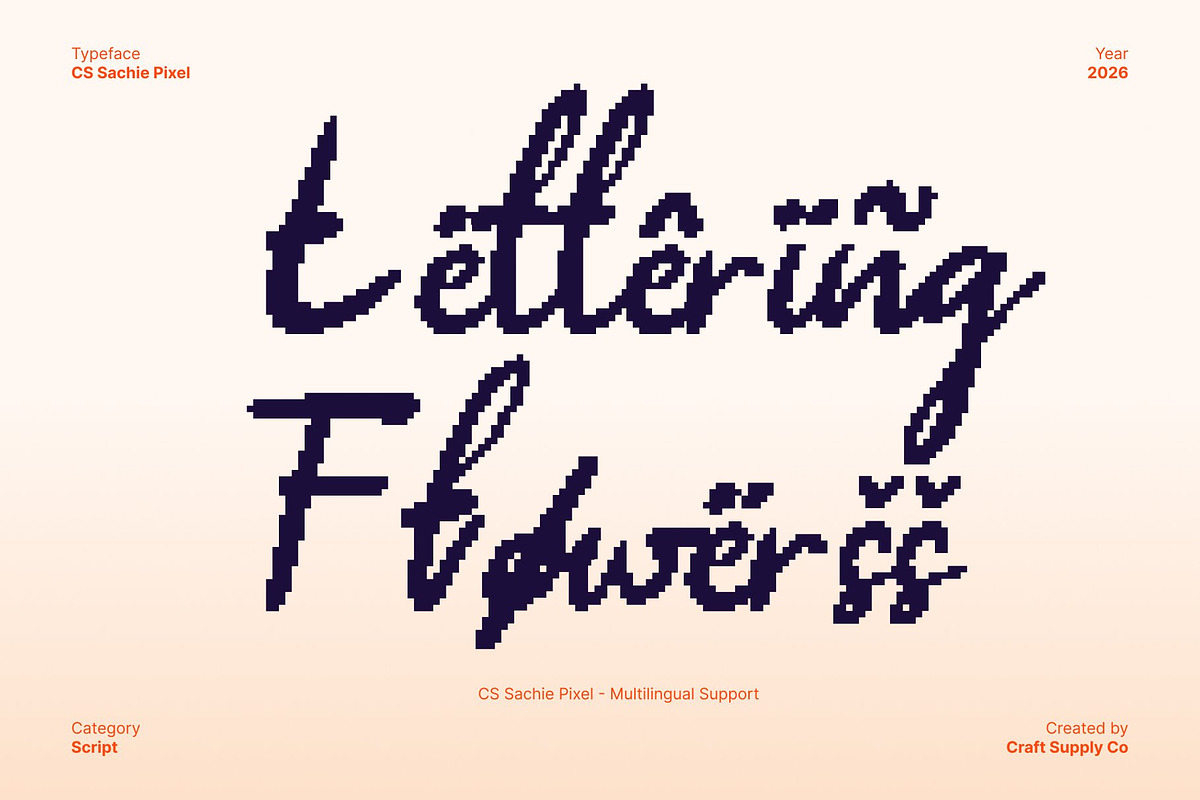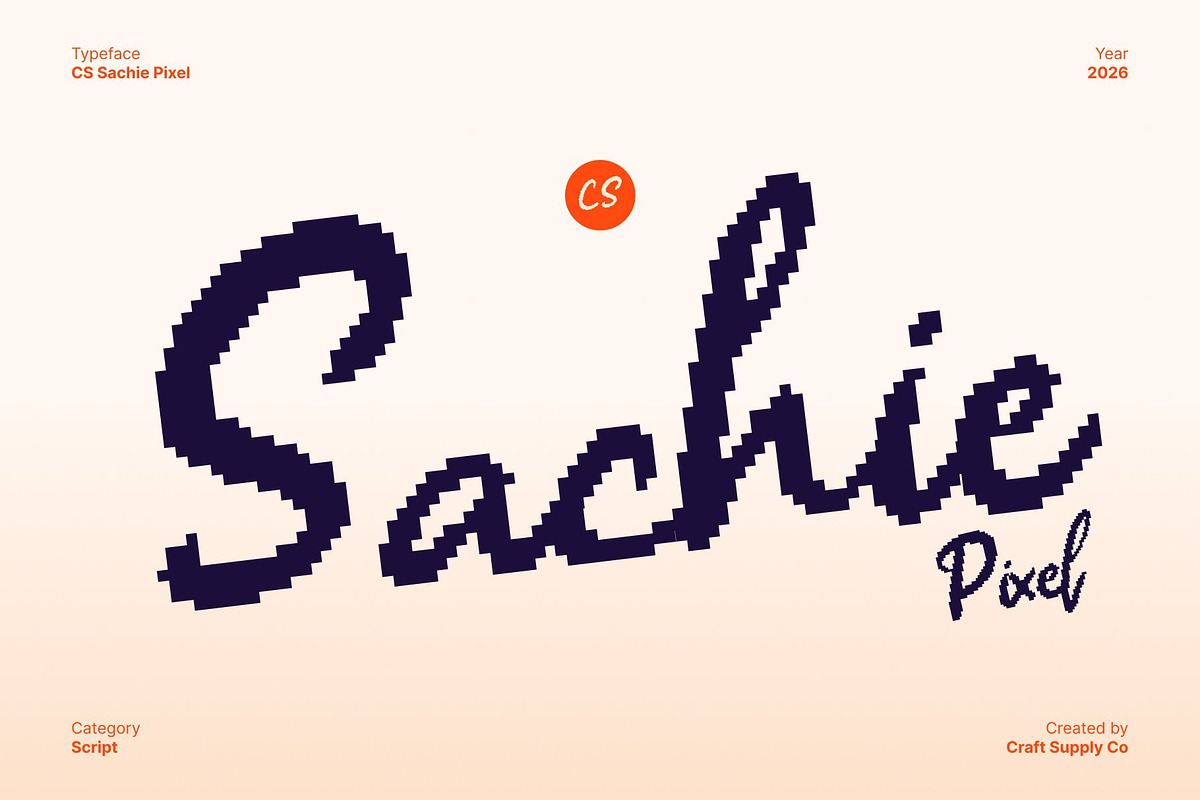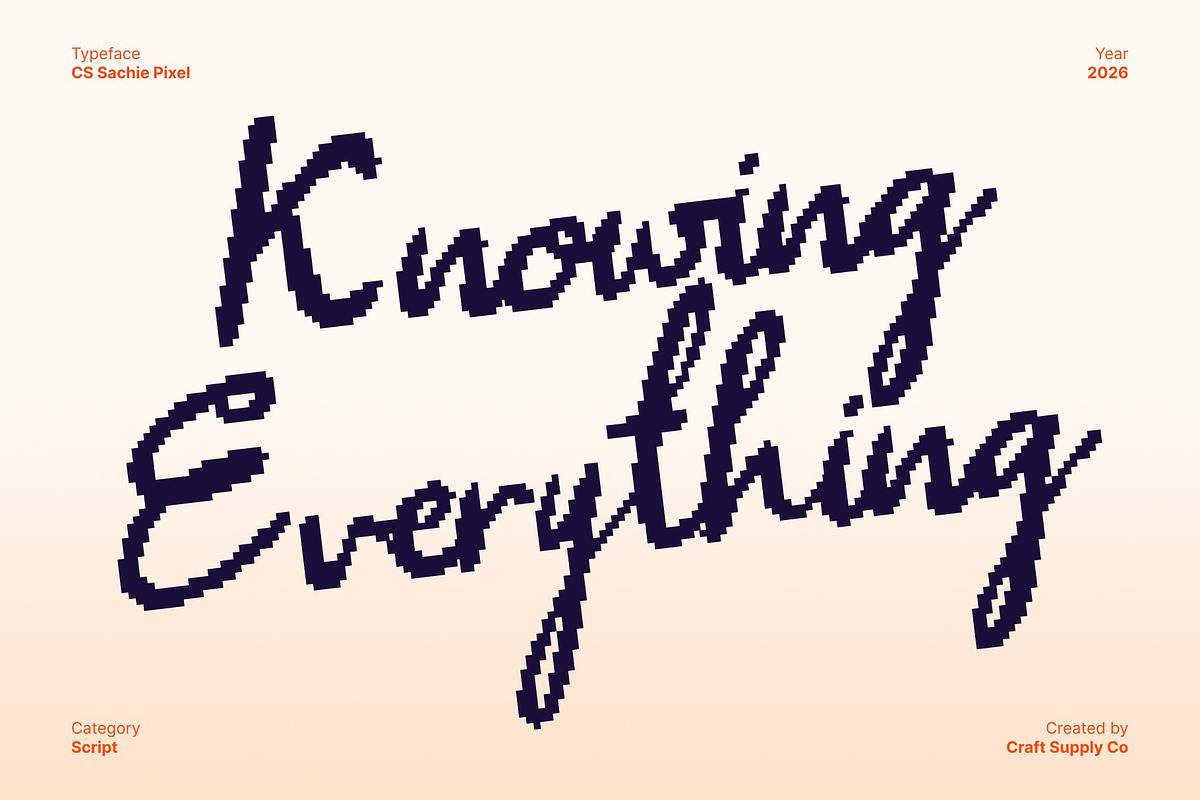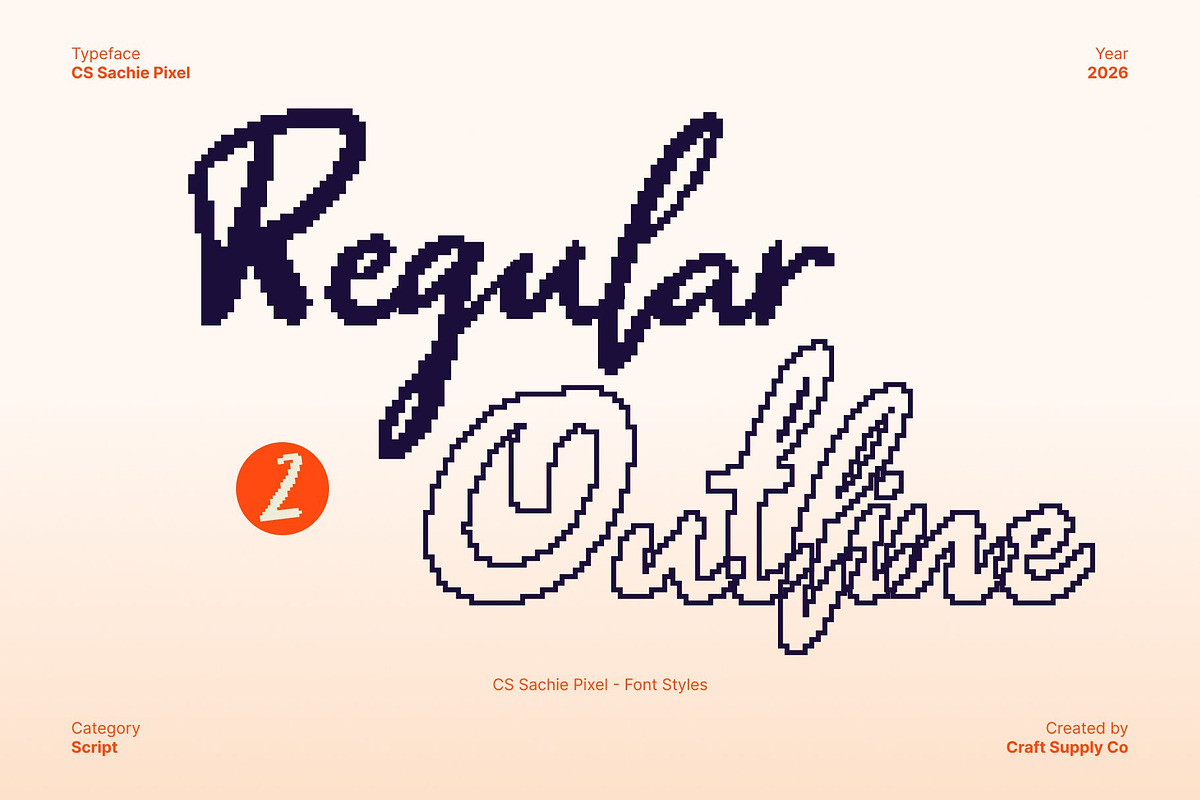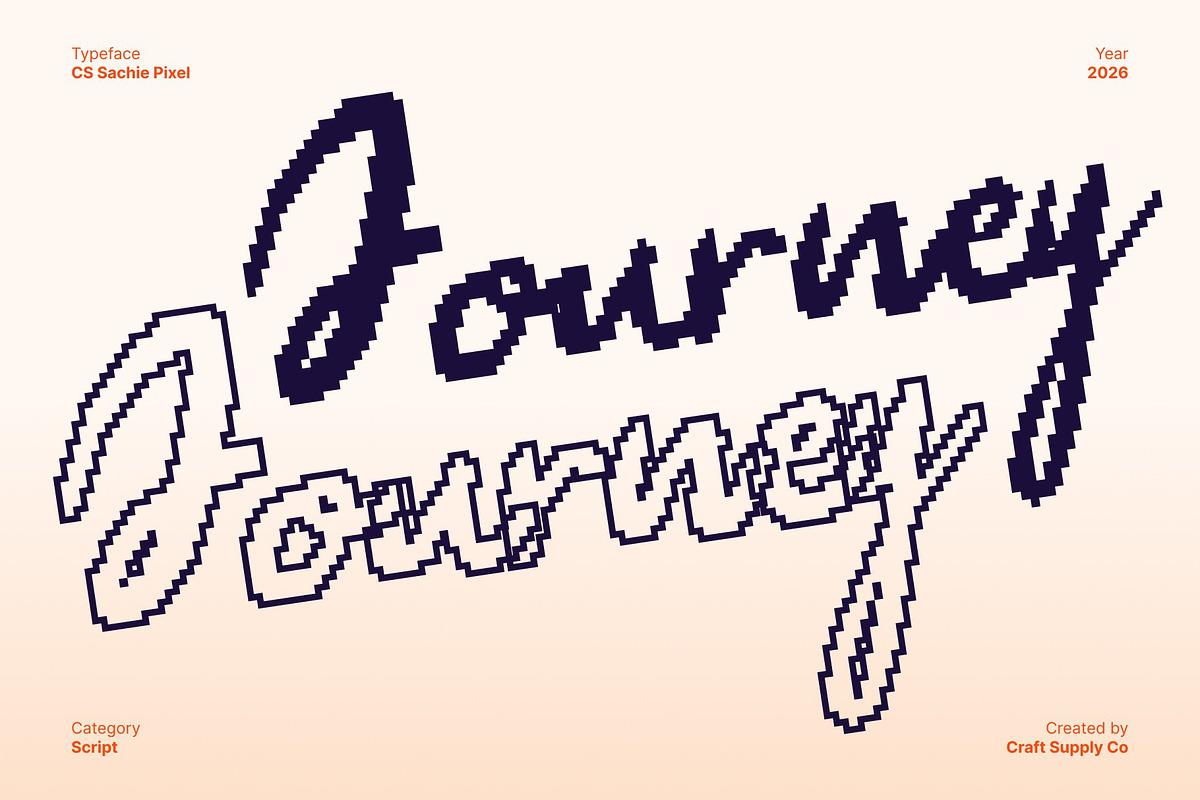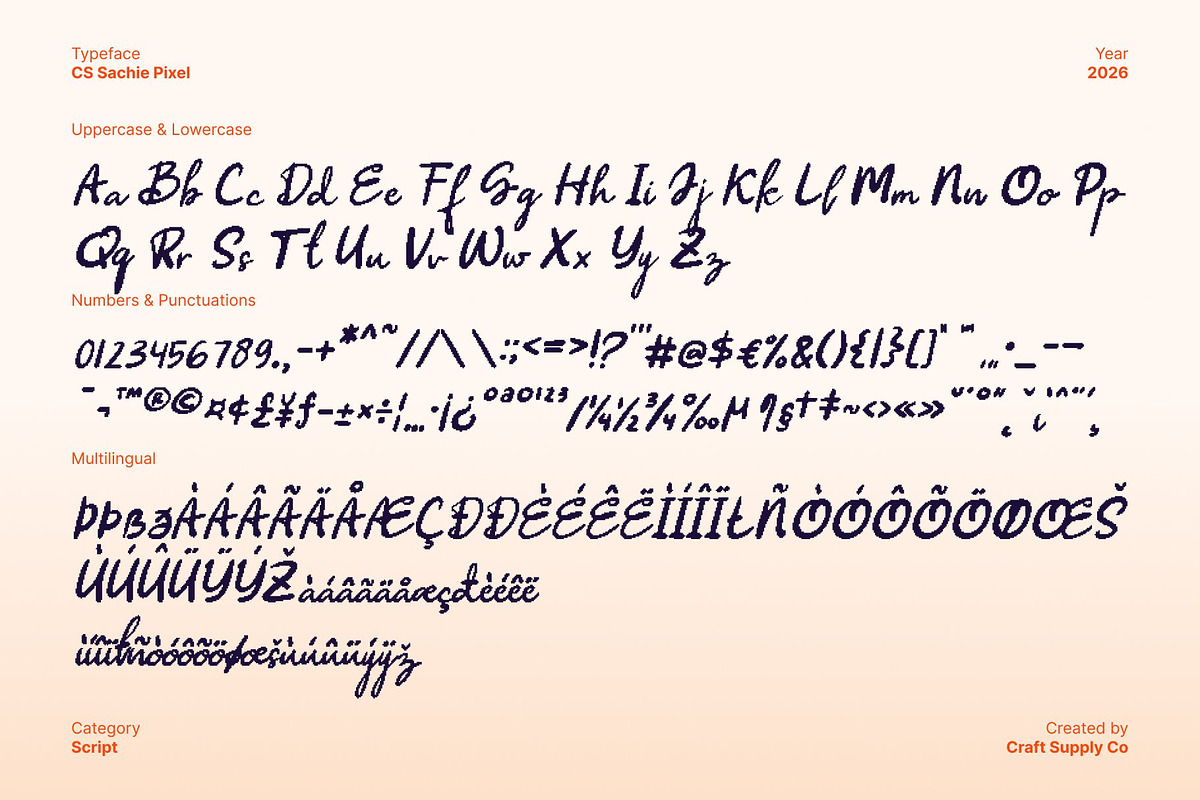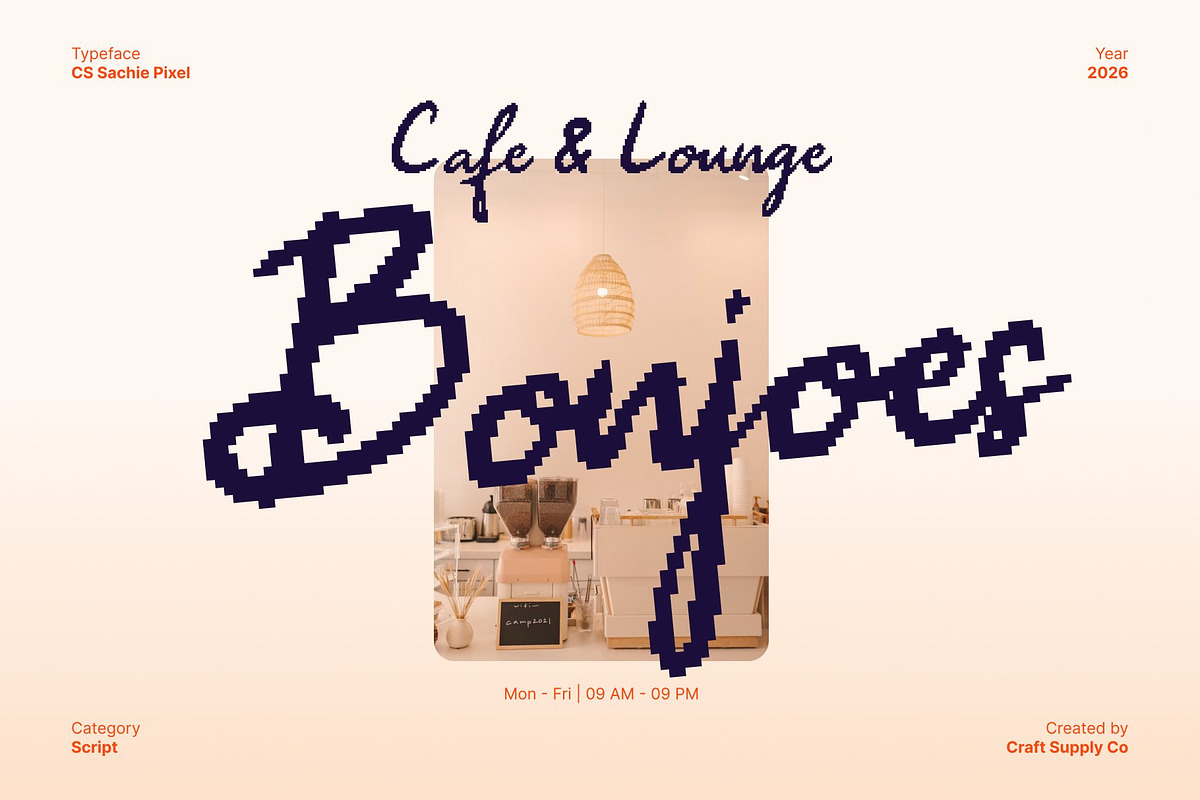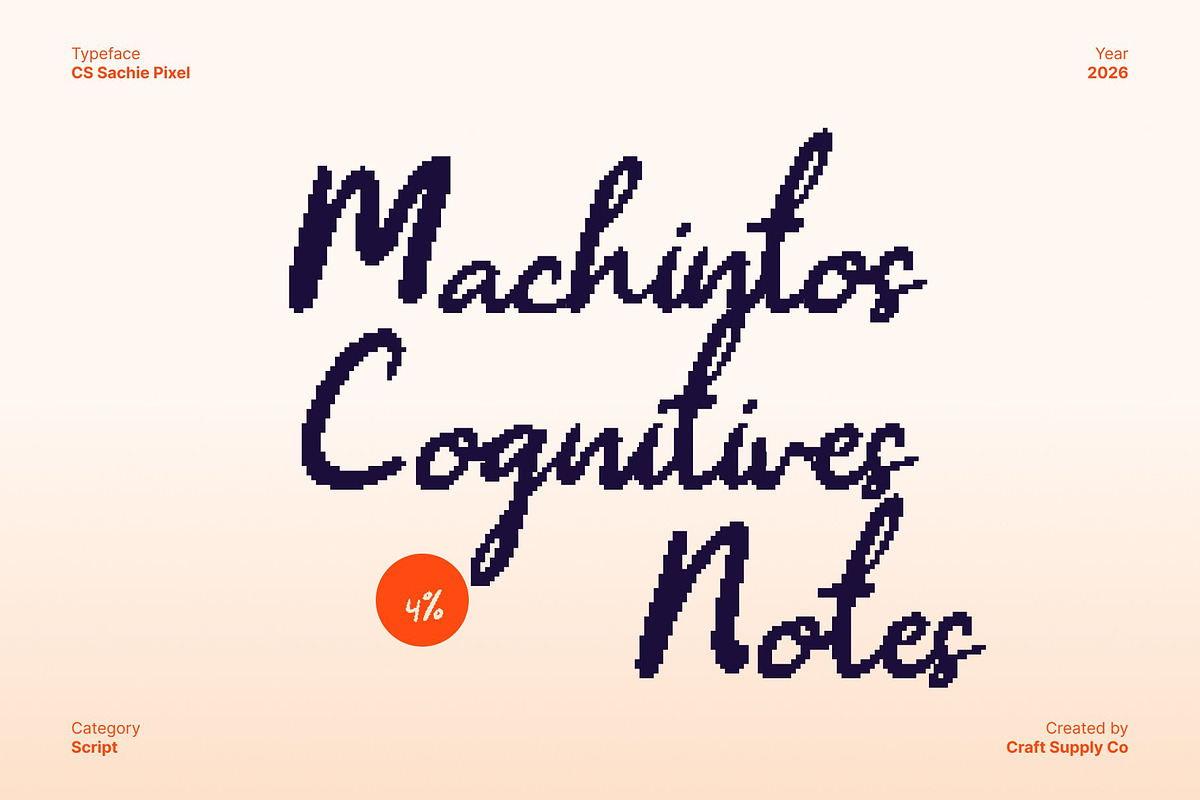
CS Sachie Pixel
CS Sachie Pixel – Chic Script Font with Delicate Creative Flourishes
Delicate Script with Pixel Personality This is a chic script font that blends graceful handwritten elegance with a distinctive pixel-based structure. Each letter is carefully constructed to retain soft, flowing movement while embracing a pixel aesthetic that adds digital character and visual intrigue. This combination creates a refined yet eye-catching appearance that feels both artistic and tech-inspired.
Pixelated Flourishes with Creative Precision The creative flourishes in this font are translated into pixel form, giving ornamental details a crisp, retro-digital charm. These accents are applied with balance and restraint, enhancing the natural rhythm of the script without overpowering it. The result is a unique fusion of elegance and pixel precision that feels expressive, intentional, and visually striking.
Chic Aesthetic with Retro-Digital Appeal While rooted in fashion-forward elegance, this font gains a bold edge through its pixel styling. The contrast between smooth script motion and structured pixel geometry creates a modern yet nostalgic tone perfectly suited for designs inspired by old technology, vintage screens, or digital-era creativity.
Perfect for Digital, Retro, and Creative Applications This font excels in digital design, game visuals, tech branding, retro-themed posters, social media graphics, and experimental fashion layouts. It also works beautifully for invitations and branding that seek a unique digital twist. With its eye-catching pixel style and refined script flow, this font delivers a memorable visual identity that stands out on screens and beyond.